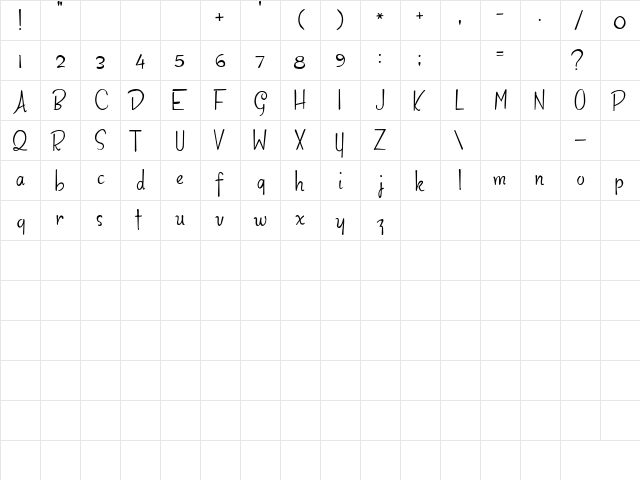
2Peas Well Behaved Regular
Design Context for 2Peas Well Behaved Typeface
2Peas Well Behaved takes a measured approach to typography — its balanced proportions and neutral character make it a reliable workhorse for both digital and print work.